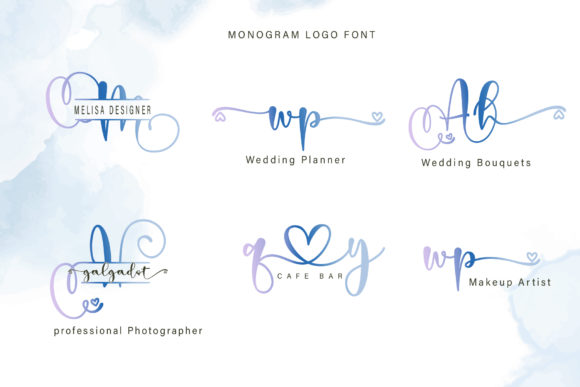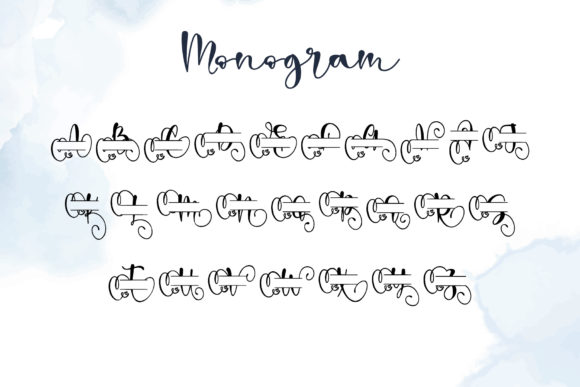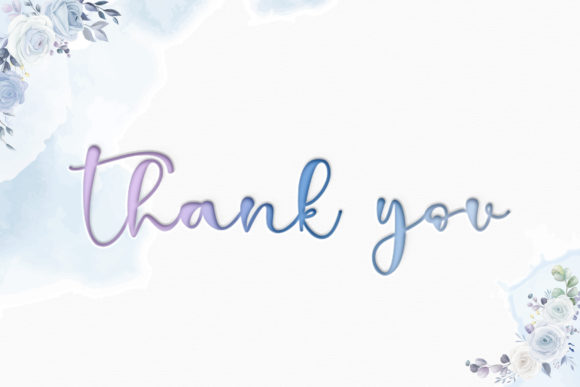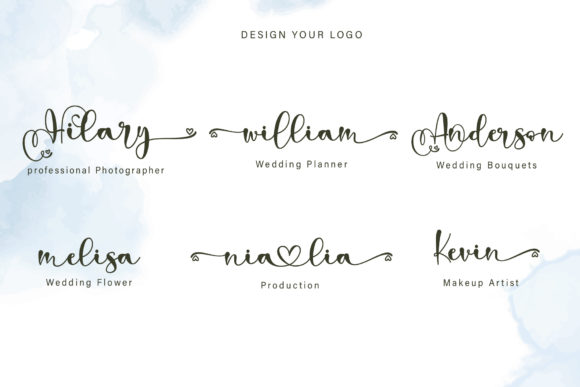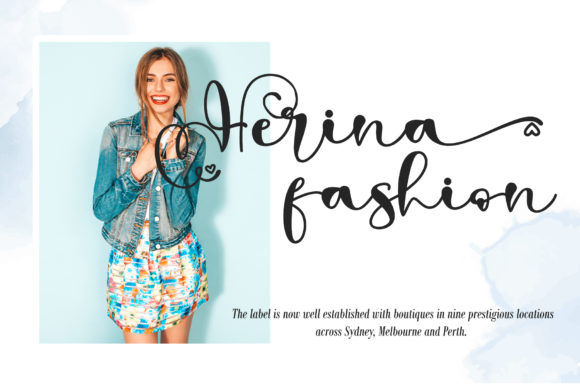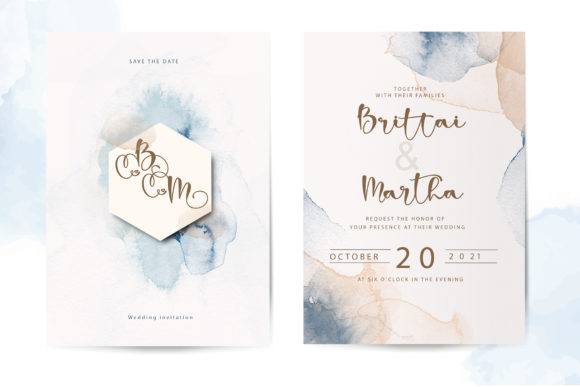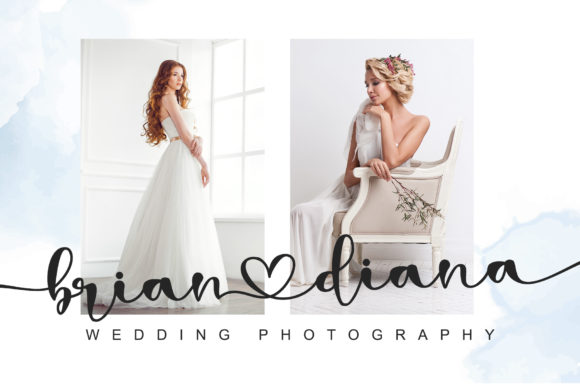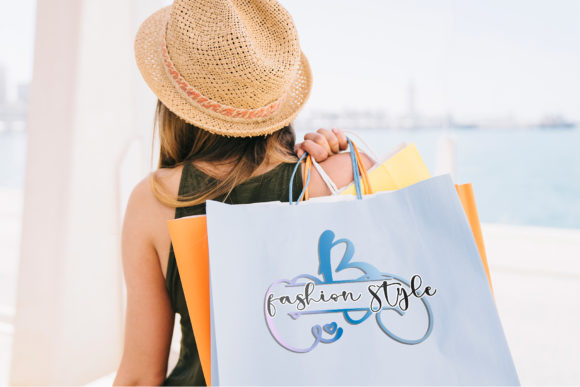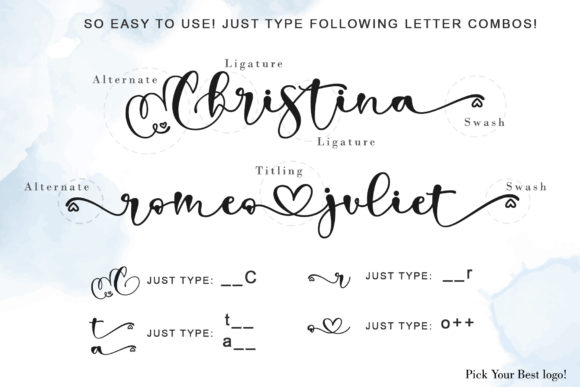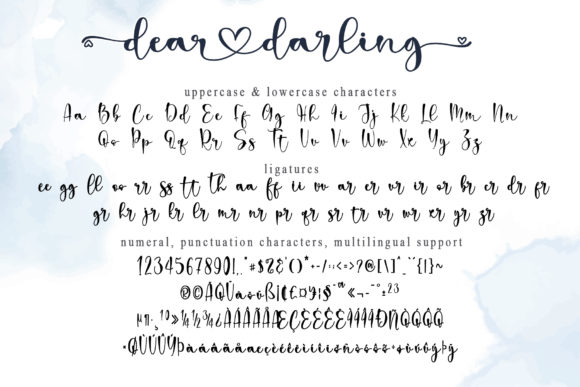
Dear Darling Font
About Dear Darling Font
Dear Darling is a beautiful and romantic calligraphy font that adds a touch of sweetness and elegance to your designs. With its charming and graceful characters, this font creates a delightful handwritten look that is perfect for a variety of projects.
The flowing and dancing baseline of Dear Darling gives it a whimsical and romantic feel. Each letter is carefully crafted to create a harmonious and graceful connection between the characters, adding a sense of fluidity and charm to your designs. Whether you’re designing a logo, a wedding invitation, a t-shirt, or any other creative project, Dear Darling will bring a romantic and captivating touch.
The versatility of Dear Darling allows it to be used in a wide range of applications. It is well-suited for logos, as it adds a personal and handcrafted feel to your brand identity. Wedding invitations and other stationery items become more enchanting with the romantic and delicate strokes of this font. Headings, signage, labels, news articles, posters, and badges can all benefit from the elegant and eye-catching appeal of Dear Darling.
Dear Darling’s PUA encoding enables easy access to its extensive collection of glyphs and swashes. This means you can easily add decorative elements and flourishes to your designs, further enhancing their beauty and uniqueness. The additional glyphs and swashes offer creative possibilities and allow you to customize your typography to suit your specific project.
Whether you’re creating a vintage-inspired design, a whimsical logo, or a romantic piece of stationery, Dear Darling will elevate your designs with its romantic and sweet calligraphy style. It brings a touch of elegance and charm to any project, making it a versatile and beloved choice for various purposes.
In conclusion, Dear Darling is a romantic and sweet calligraphy font with dancing baseline characters that exude charm and elegance. Its versatility makes it suitable for logos, wedding invitations, headings, t-shirts, letterhead, signage, labels, news, posters, badges, and more. With its PUA encoding, you can easily access a wide range of glyphs and swashes to add decorative elements and flourishes to your designs. Choose Dear Darling to create captivating and enchanting designs that leave a lasting impression.